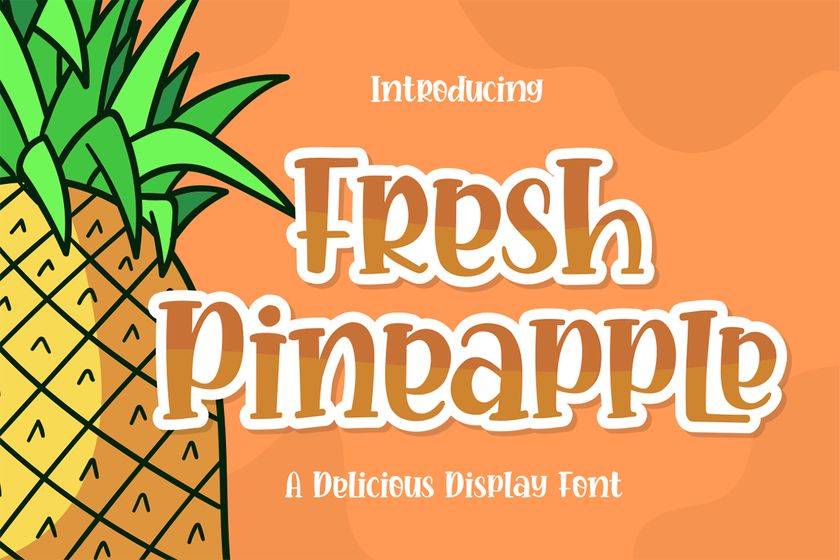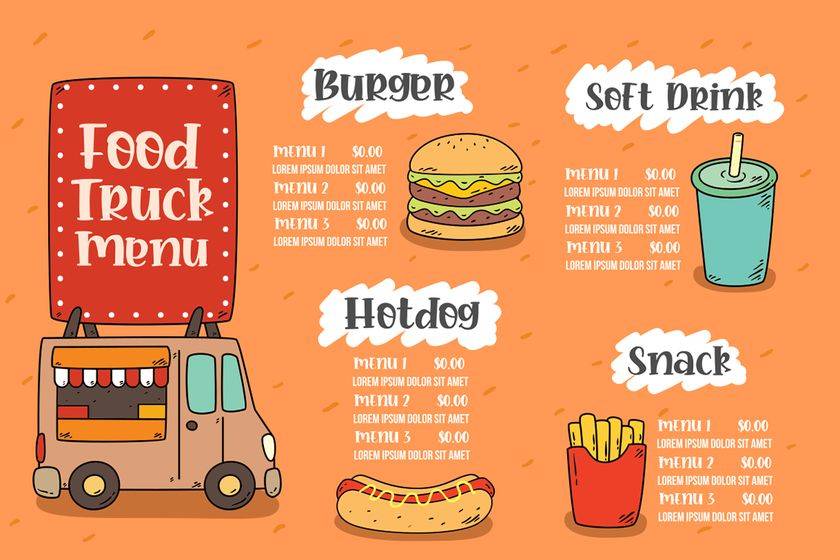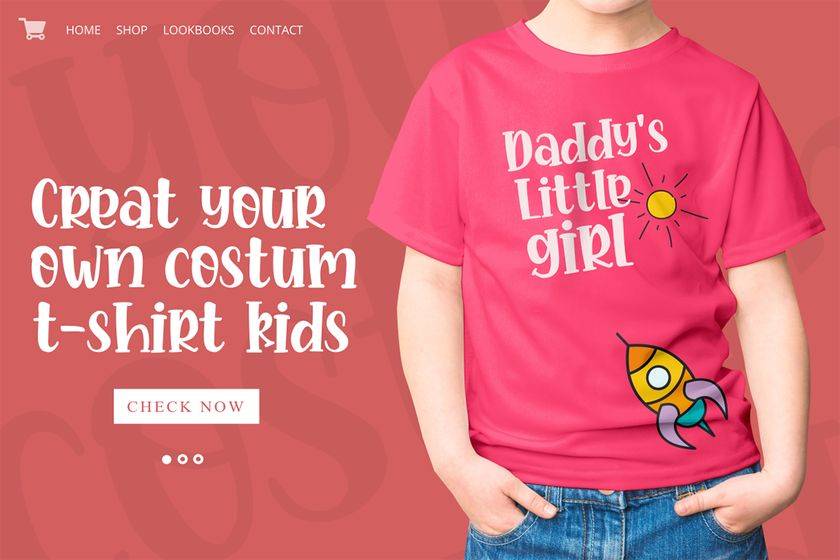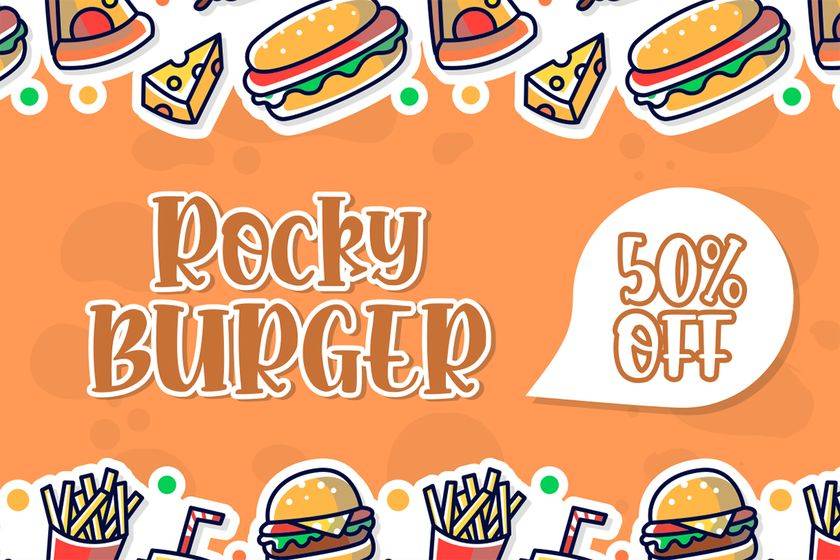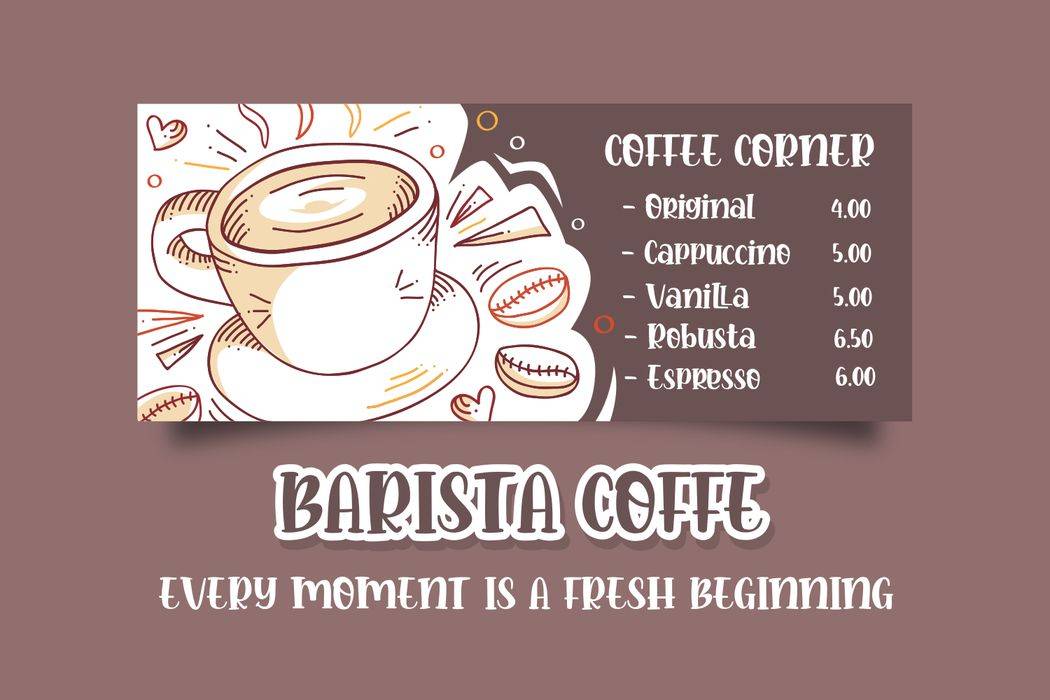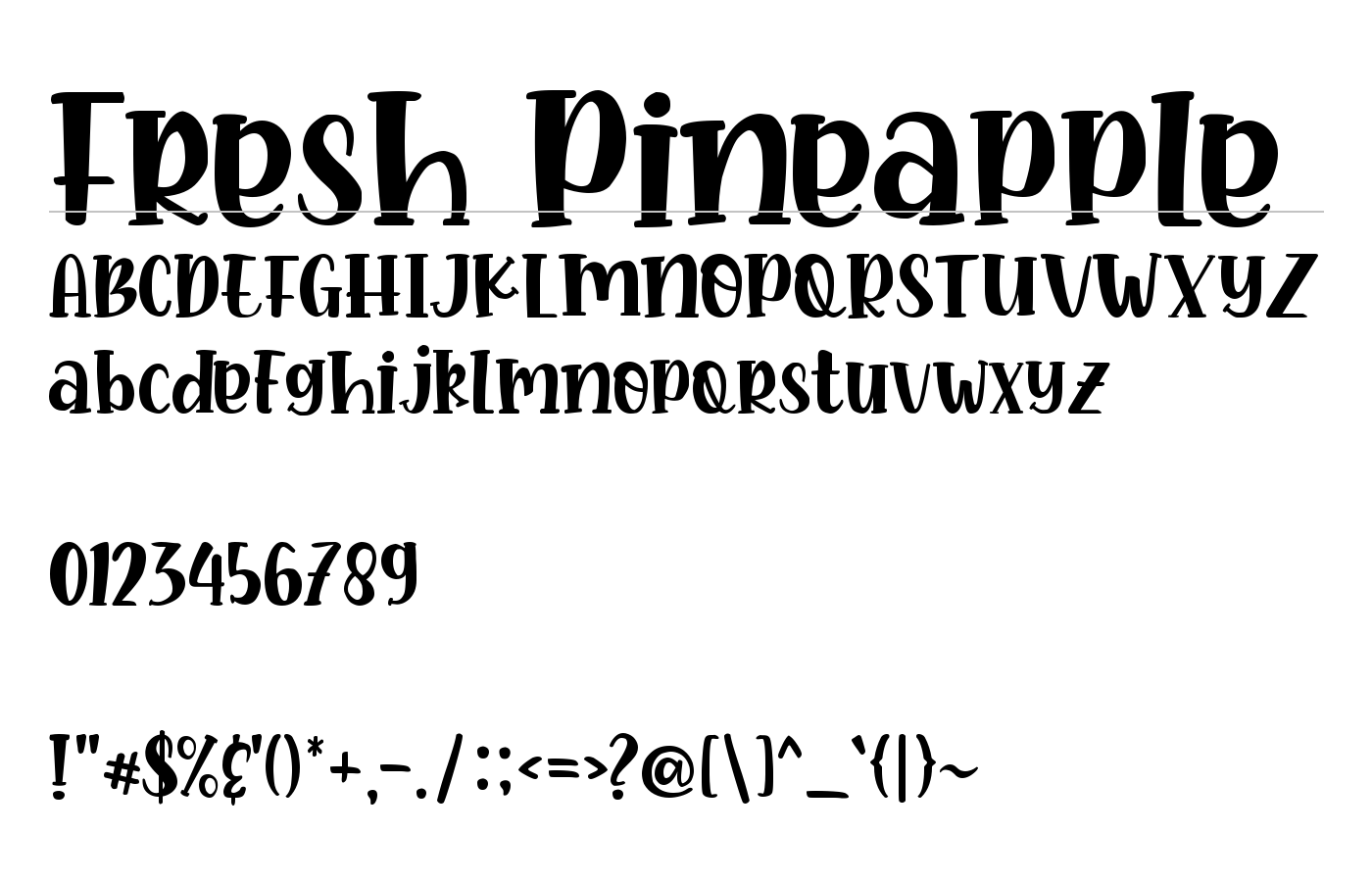
Fresh Pineapple is a playful, quirky serif font with a hand-drawn feel, characterized by its uneven strokes and charmingly irregular letterforms that give it a lively personality. Its medium weight, moderate contrast, and tall x-height make it readable yet expressive, perfect for creative and casual branding, packaging, or headlines that want to convey a fun and friendly vibe. This font works well in designs that need a touch of whimsy and uniqueness without sacrificing clarity.
Fresh Pineapple Font
About Fresh Pineapple Font
| Font family | Fresh Pineapple Font |
| Designer | Zeenesia Studio |